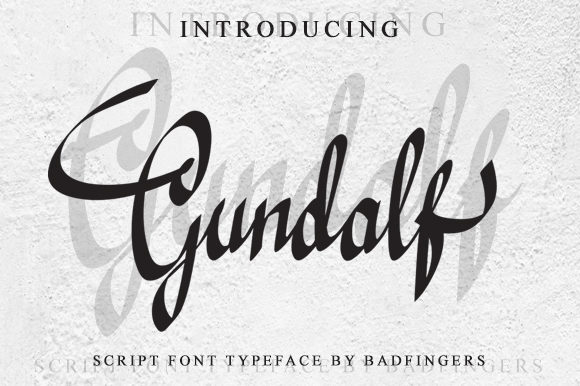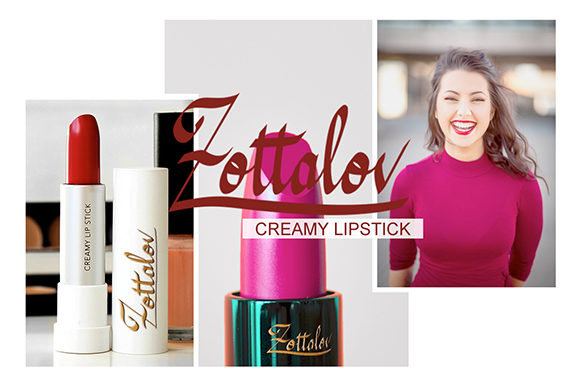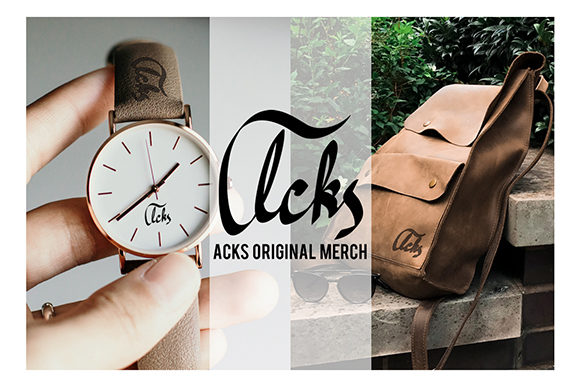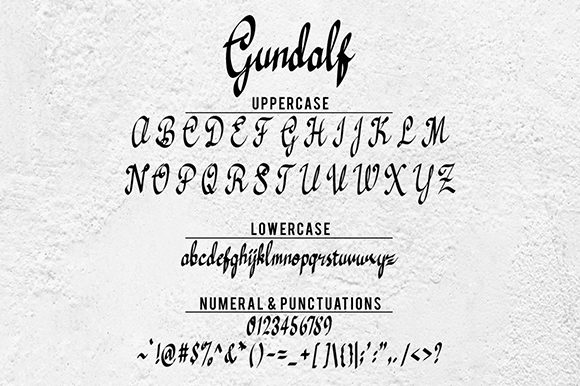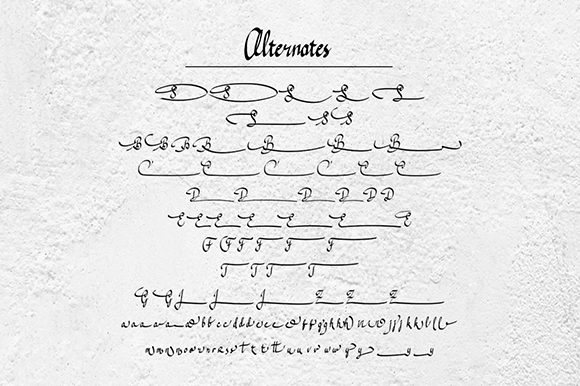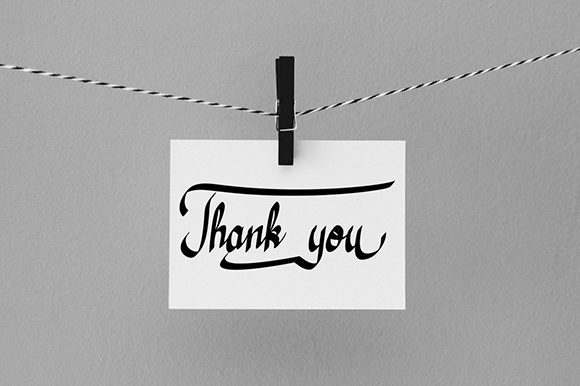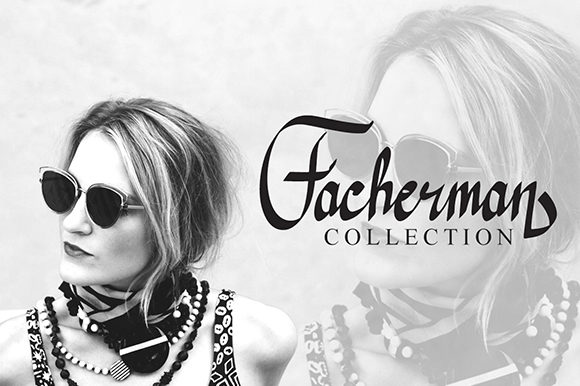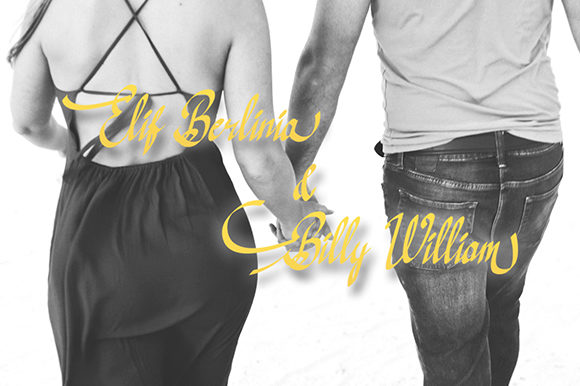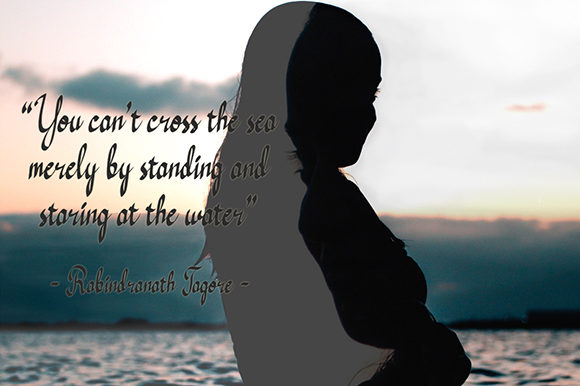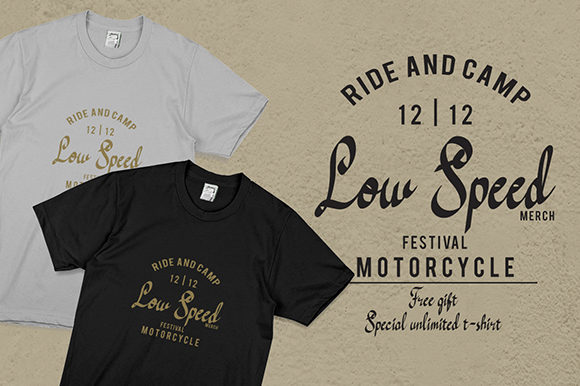
Gundalf Font
About Gundalf Font
The Gundalf is a striking script font. It has a great readability and can be perfectly combined with other elegant typefaces.